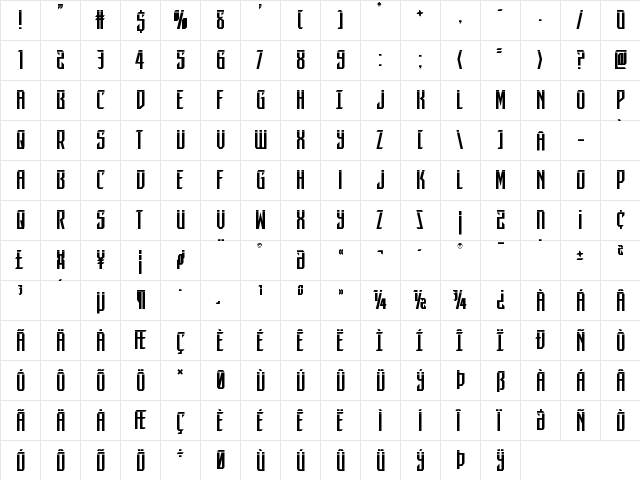
Dark Dominion Laser Regular
Design Context for Dark Dominion Laser Typeface
Dark Dominion Laser takes a measured approach to typography — its balanced proportions and neutral character make it a reliable workhorse for both digital and print work.